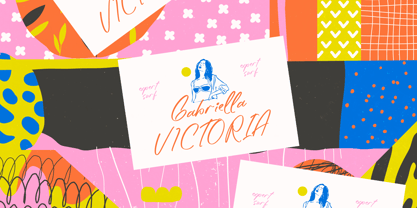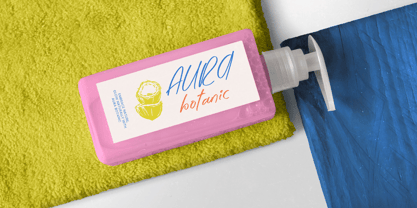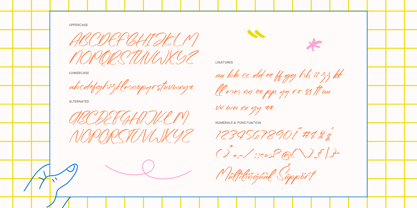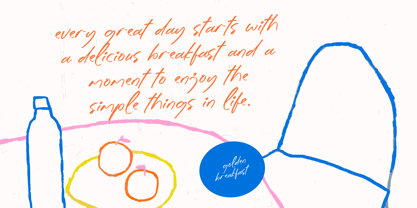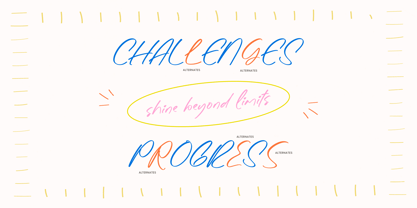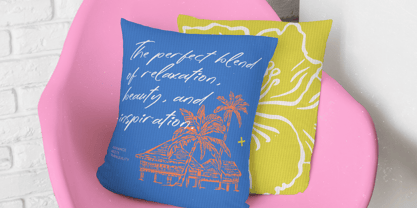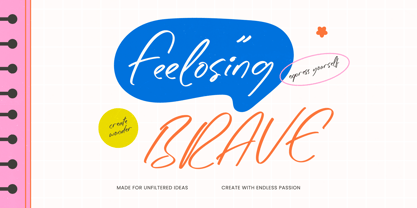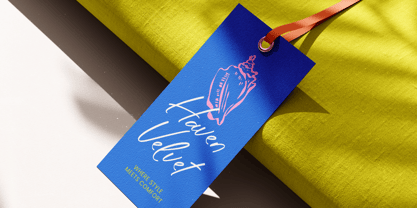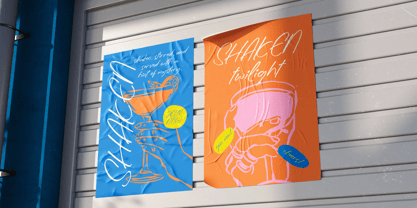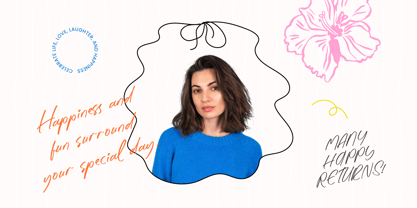
Feelosing Brave
Die Schriftfamilie Feelosing Brave wurde von Heru Utama Putra entworfen und von Stylishtype Studio veröffentlicht. Feelosing Brave enthält 2 Stile und Familienpaketoptionen. Mehr über diese Familie
Capture the raw and uninhibited spirit of your thoughts with Feelosing Brave, a typeface that breathes authentic life into every word. It is designed to be more than just a font, acting as a visual representation of spontaneous moments and bold creative expressions.
Inspired by the quick scribbles of a personal journal and the charming imperfections of felt-tip marker notes, this typeface captures a sense of immediate movement. It evokes the atmosphere of a sunny afternoon picnic or a late-night brainstorm session where ideas flow faster than the ink can travel across the page.